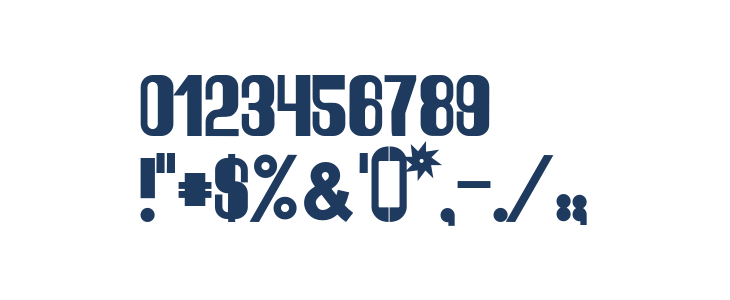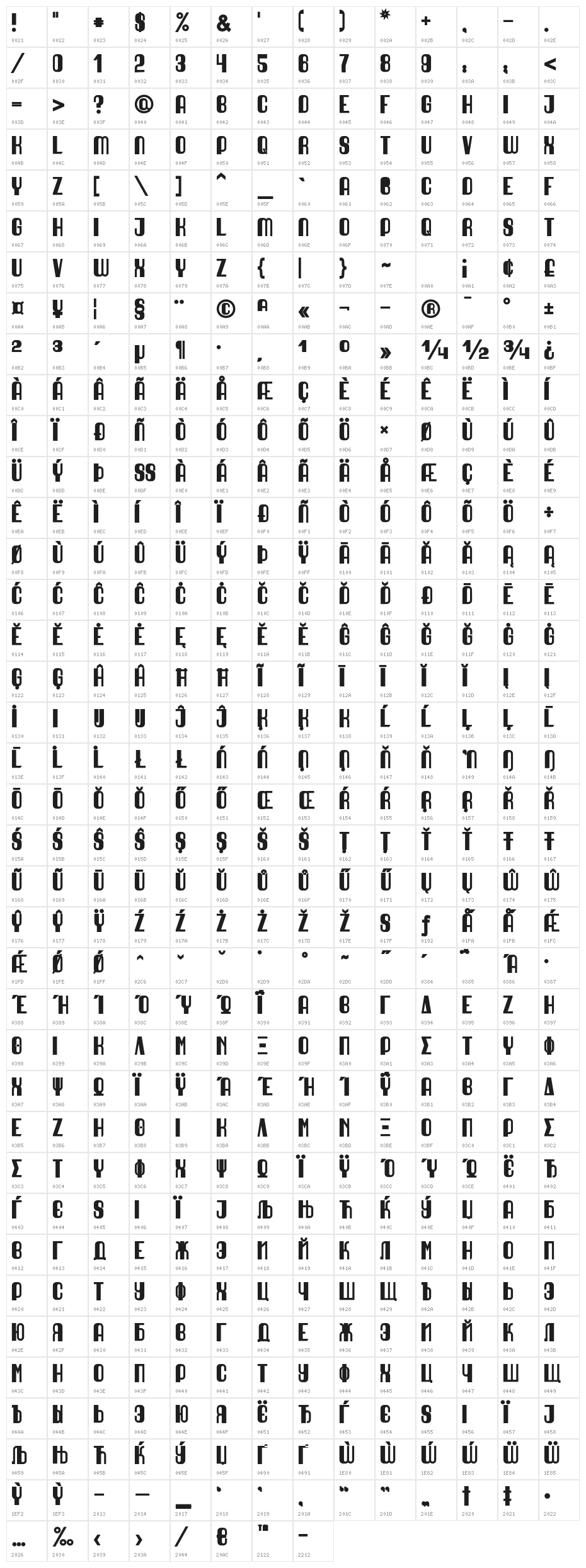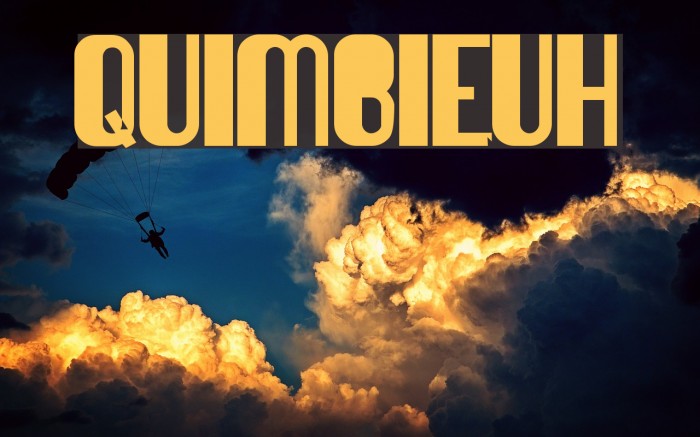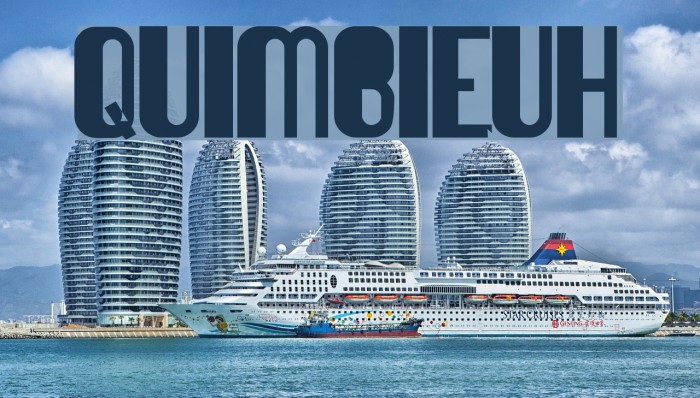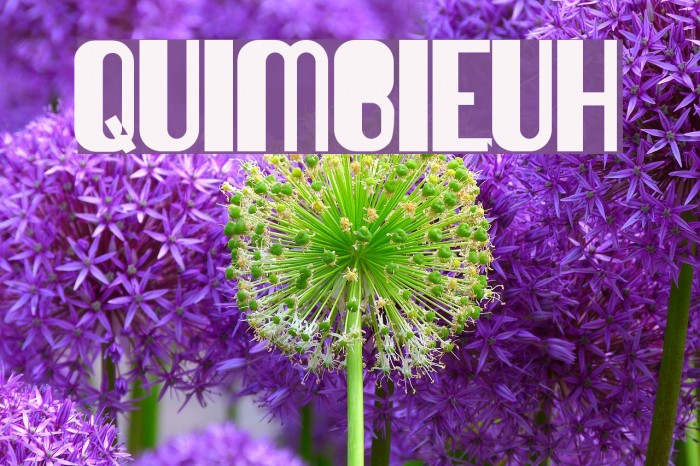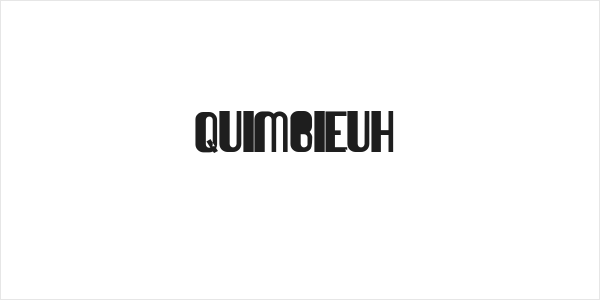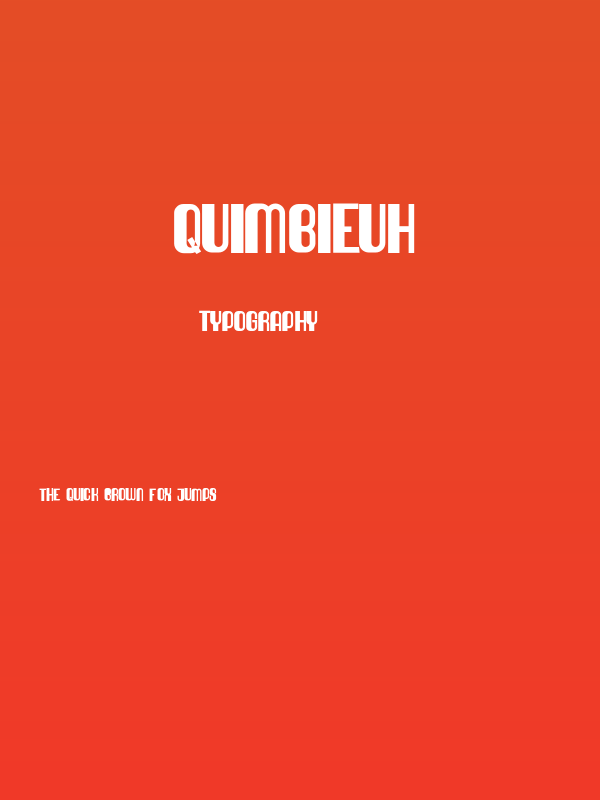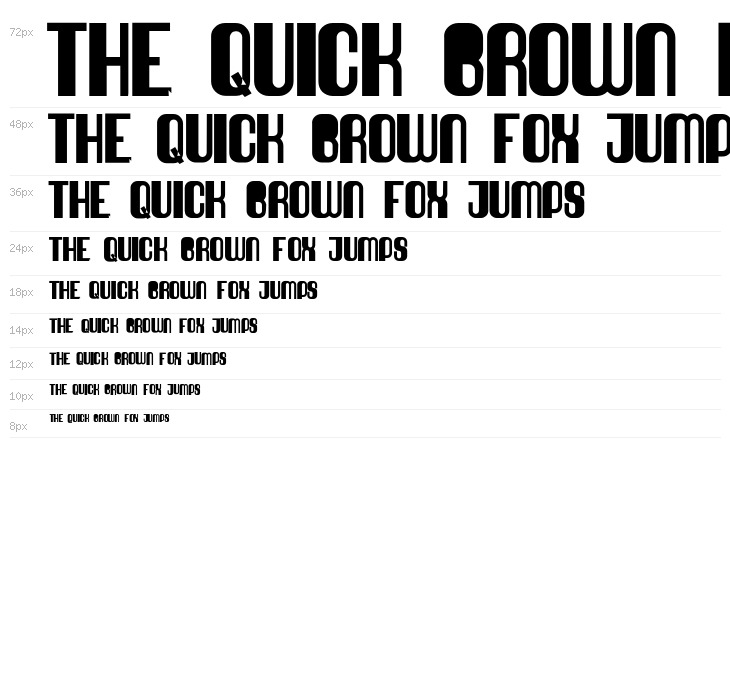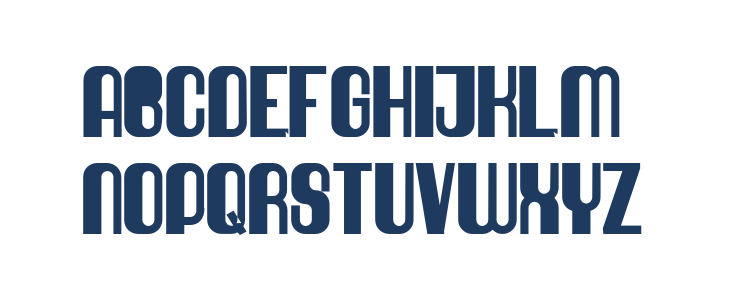
QuimbieUH Font
QuimbieUH Description
This font features a bold and striking design with a modern aesthetic. The characters are tall and condensed, with a strong vertical emphasis that gives them a commanding presence. The strokes are thick and uniform, creating a sense of solidity and strength. The uppercase letters are particularly impactful, with sharp angles and clean lines that enhance their readability. The numbers and special characters maintain the same boldness, ensuring consistency across all elements. This font is ideal for making a statement and drawing attention.
| Proposed Projects | Ideal for headlines, posters, branding, and any project requiring a bold, attention-grabbing typeface. |